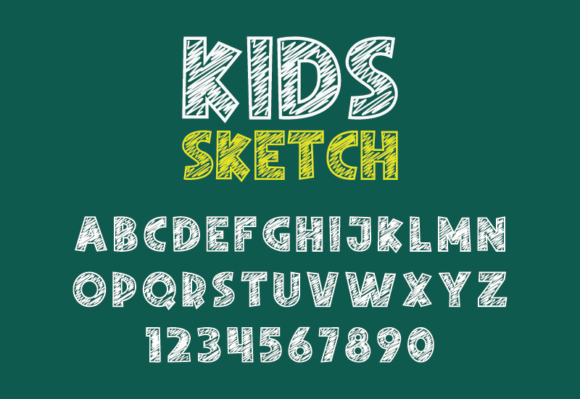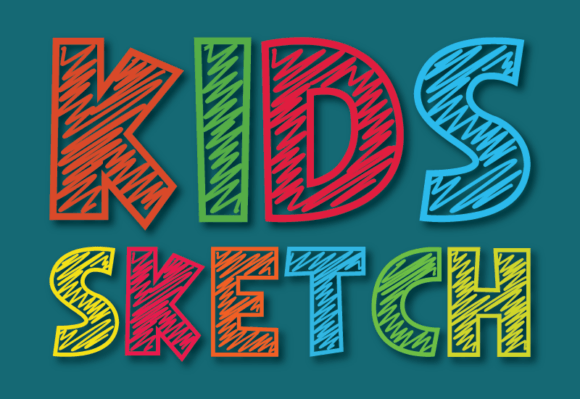
Kids Sketch Font
“Kids Sketch” is a playful font specifically designed to immerse your artistic endeavors in a world of childhood joy and back-to-school nostalgia. This font provides an ideal choice for childhood-themed designs, educational materials, book jackets, and so much more. With its delightful, merry characters that take you back to the times of handwritten notes and whimsical doodles, “Kids Sketch” truly captures the essence of childhood merriment in each stroke.